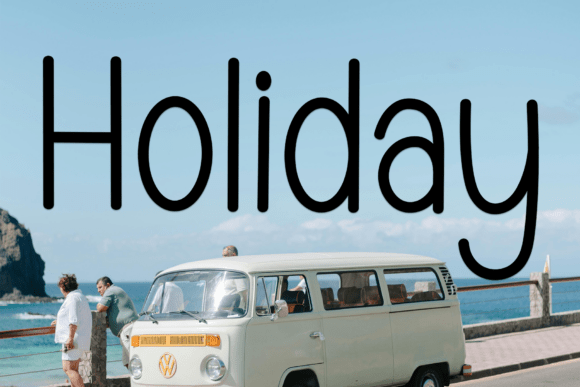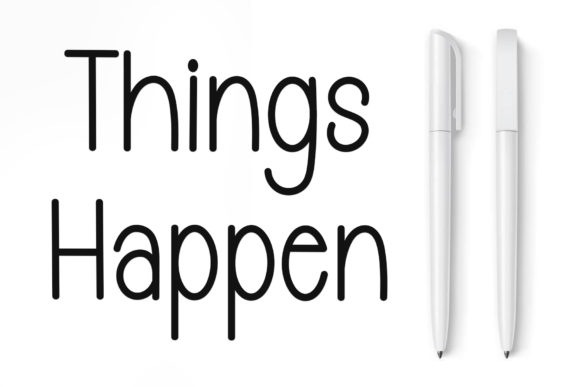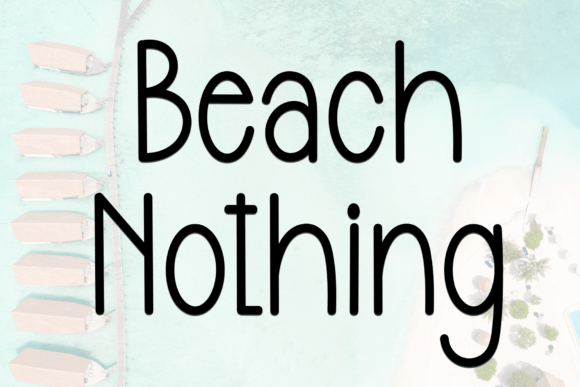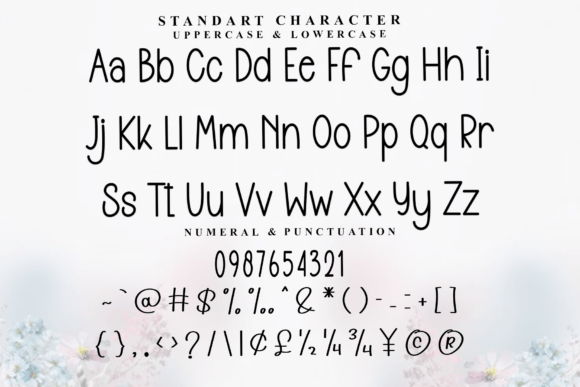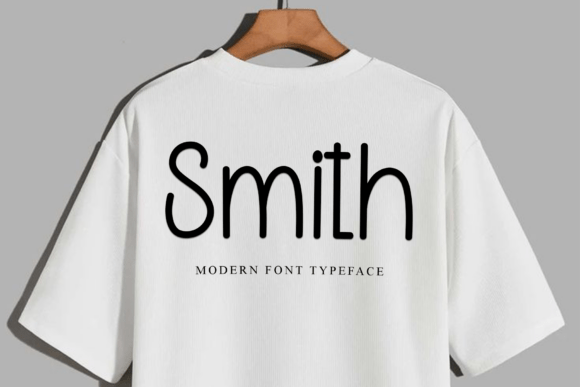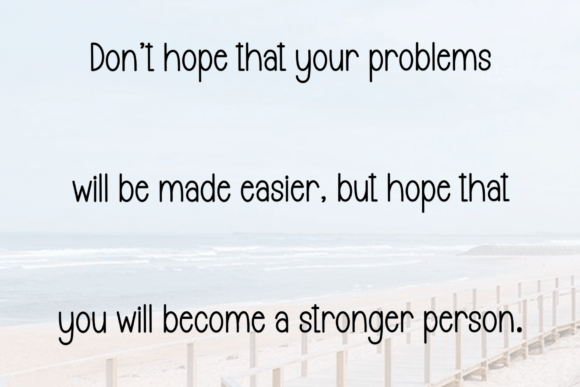
The Sunny Disposition of Beach Chocolate Font
I’ll never forget the summer I was tasked with creating a branding package for a beachside ice cream shop. I had a clear vision of colorful, playful designs, but one thing was missing: the perfect font. That’s when I stumbled upon Beach Chocolate, a delightful sans serif font that instantly transported me to a sunny beach vacation. Its smooth, rounded structure and friendly vibe were exactly what I needed to bring the brand to life.
A First Impression: What I Love About Beach Chocolate
Beach Chocolate is more than just a font – it’s a design attitude. Here are a few things that make it stand out:
- ✨ Smooth, rounded structure: Beach Chocolate’s clean lines and gentle curves make it a joy to use in a variety of designs.
- ✅ Legible forms: Even at smaller sizes, Beach Chocolate remains clear and easy to read, making it perfect for body text or captions.
- 🌴 Summer vibes: This font was made for sun-kissed designs, from beachy branding to kids’ projects and casual packaging.
- 🎉 Hand-drawn charm: Beach Chocolate’s imperfections and quirks give it a friendly, approachable feel that’s hard to replicate with more formal fonts.
No font is perfect, and Beach Chocolate has a few quirks to keep in mind:
- 🤔 Limited contrast: Beach Chocolate’s smooth lines can make it harder to create visual hierarchy in some designs. Consider using bold weights or pairing it with a more dramatic font.
- ⚠️ Not ideal for body text: While Beach Chocolate is legible, its playful nature makes it better suited for headlines, captions, or short paragraphs rather than long-form content.
The Story Behind Beach Chocolate
Beach Chocolate was designed with the intention of capturing the carefree spirit of a summer day. Its creator wanted to craft a font that would evoke feelings of warmth, friendliness, and approachability. The result is a font that’s perfect for designs that need a sunny disposition.
| What type of designs is Beach Chocolate best suited for? | Beach Chocolate is perfect for summer-themed designs, beachside branding, kids’ projects, and casual packaging. |
| Is Beach Chocolate legible at small sizes? | Yes, Beach Chocolate remains clear and easy to read even at smaller sizes, making it suitable for body text or captions. |
| Does Beach Chocolate support OpenType features? | Yes, Beach Chocolate supports OpenType features like Stylistic Alternates, Glyphs, and Ligatures, giving you more creative control over your text. |